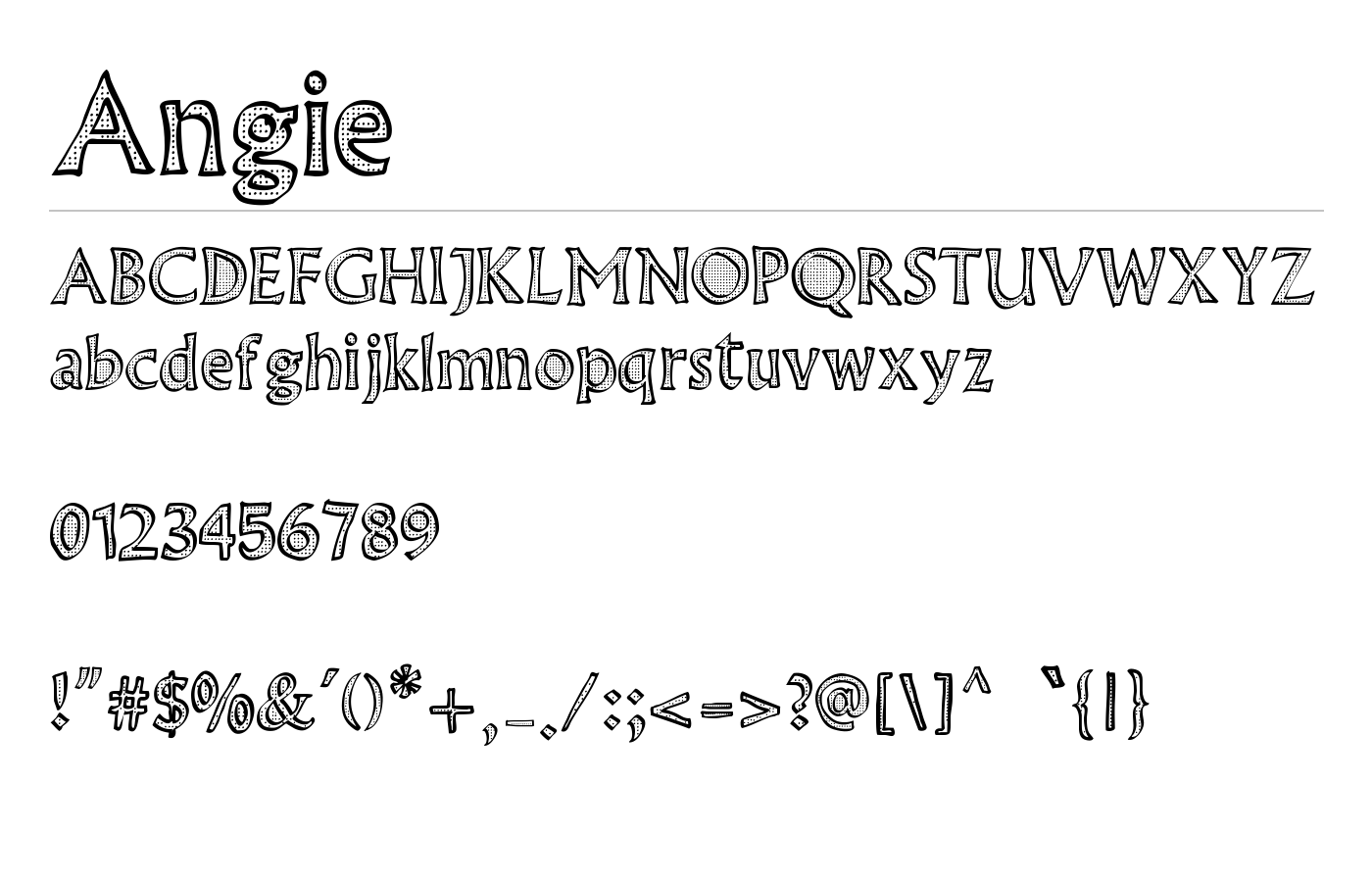
Angie in Love is a playful serif font with a hand-drawn feel, featuring whimsical and uneven letterforms accented by dotted textures inside the characters. Its quirky style, medium weight, and moderate contrast make it perfect for fun, creative projects like children's books, casual invitations, and artistic branding where a friendly and informal tone is desired. This font shines in headlines and decorative use, bringing an approachable and charming personality to any design.
Angie in Love Font